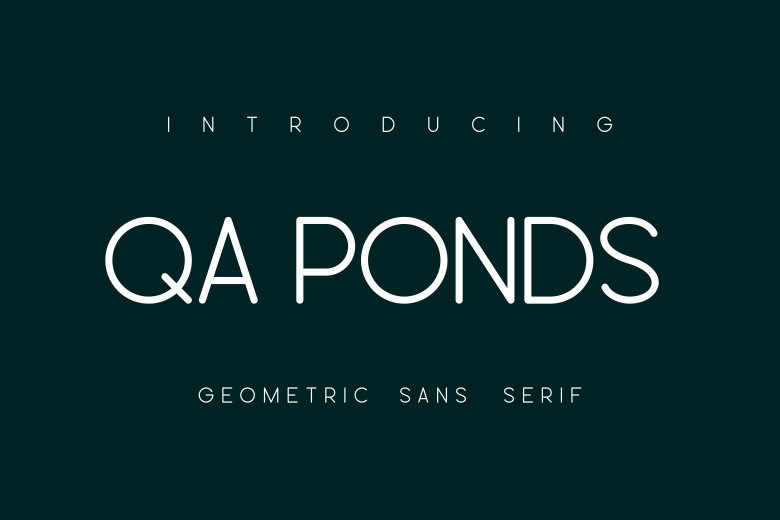
Qa Ponds Font
The Qa Ponds easy-to-spot and modern sans-sarif font. This minimalist and genuine vibe can easily apply to your favorite designs such as book covers, magazines, social media posts, invitations, and so much more!
Qa Ponds Sans Serif Font